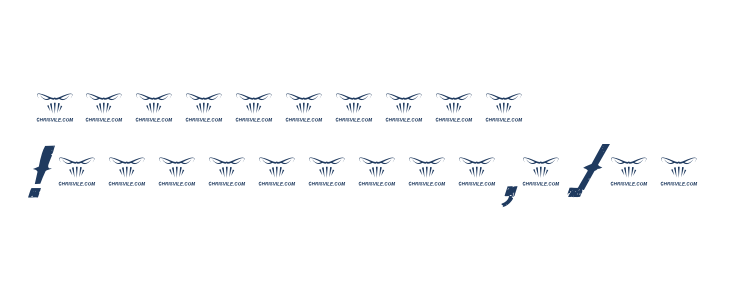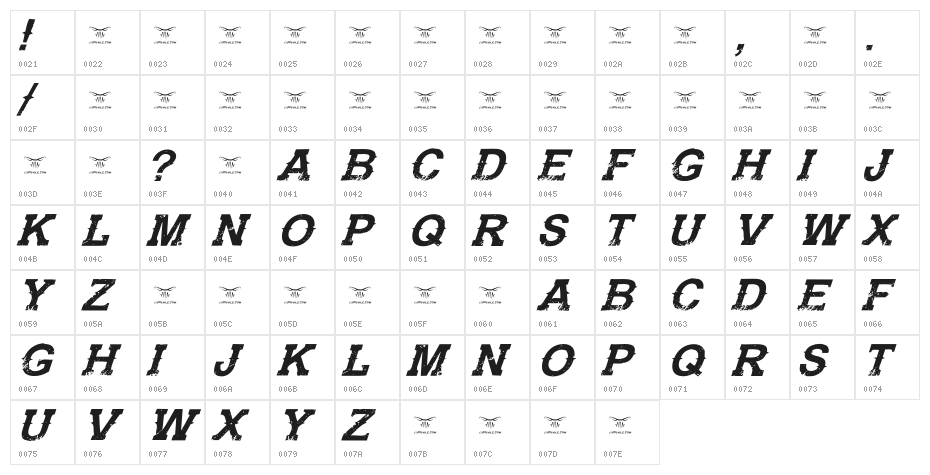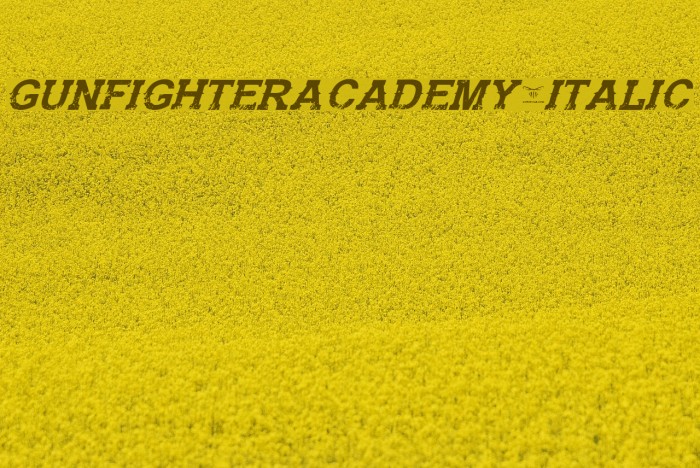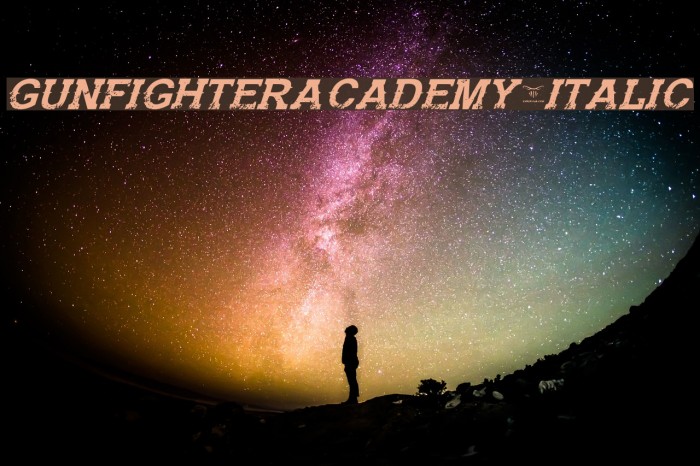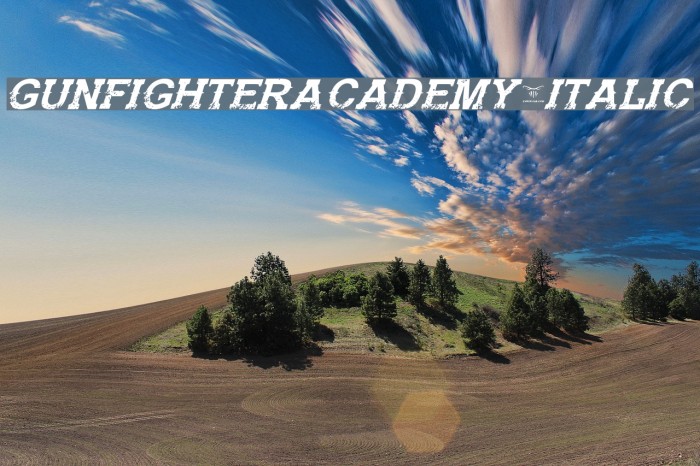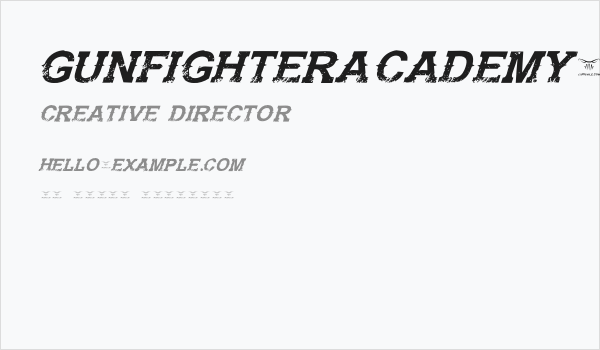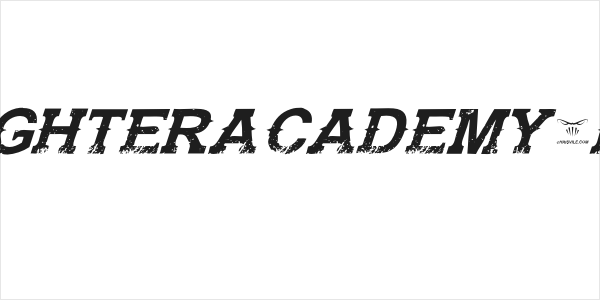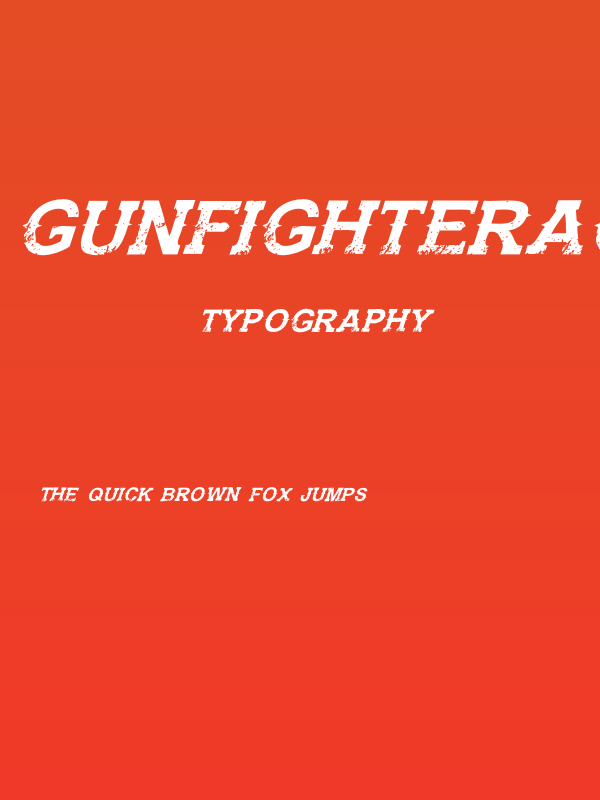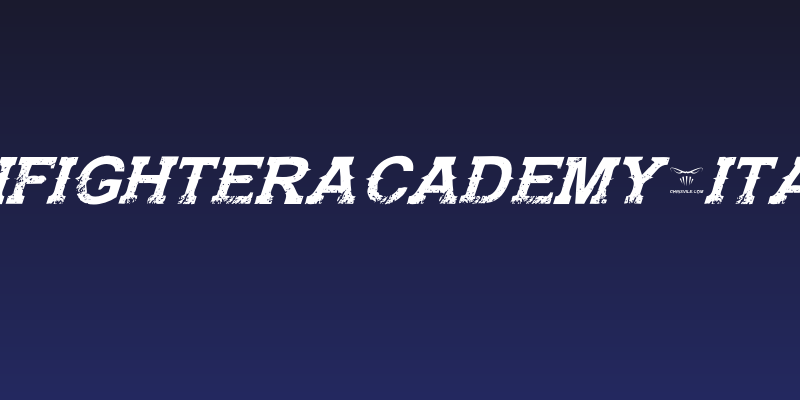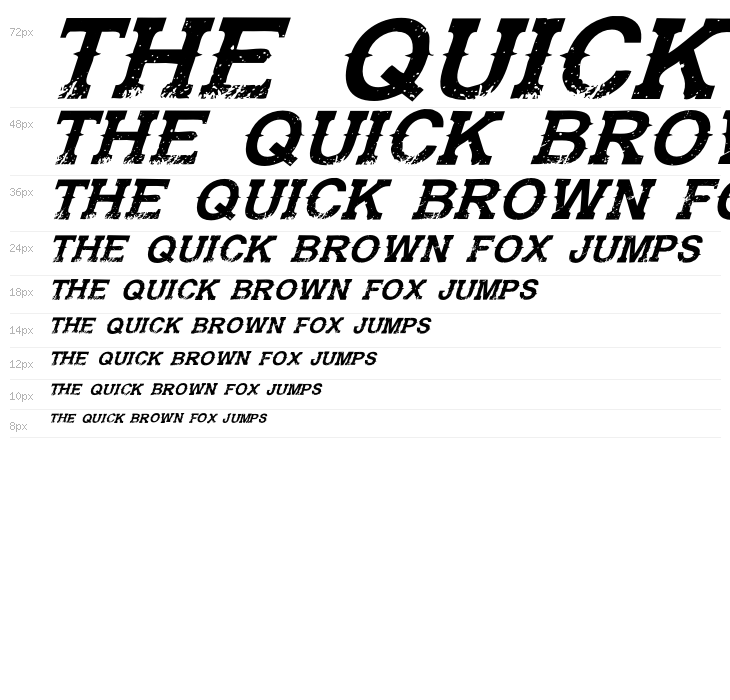
GunfighterAcademy-Italic Font
GunfighterAcademy-Italic Description
This font features a bold and rugged style with a distressed texture that gives it a gritty, worn appearance. The italic slant adds a dynamic and energetic feel, making it stand out with a sense of movement. The uppercase letters are prominent and assertive, while the lowercase letters maintain the same boldness and texture. The numbers and special characters are consistent with the overall distressed aesthetic, providing a cohesive look across all characters. This font is perfect for projects that require a strong, impactful presence with a touch of vintage or western flair.
Overall StyleVintage, Decorative
Proposed ProjectsIdeal for posters, logos, branding, and any design needing a bold, vintage aesthetic.